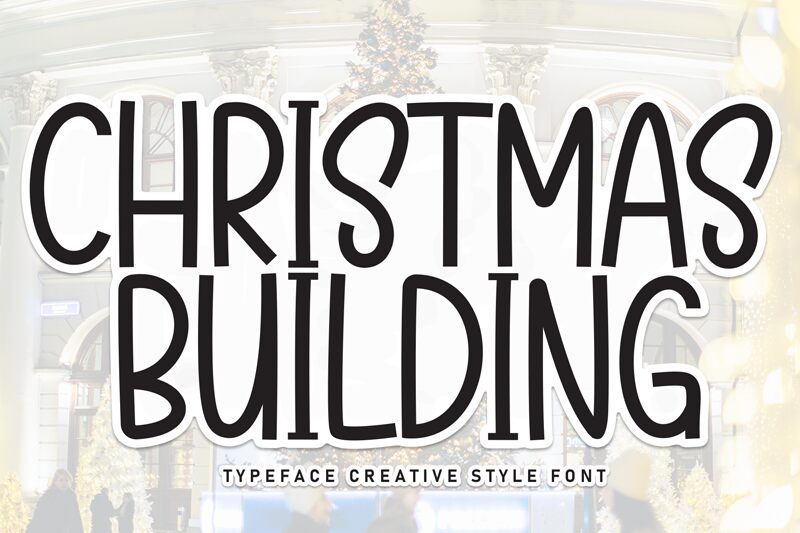
Christmas Building
Christmas Building font designed by Scratchones is a free handwritten font with a friendly and informal appearance. Featuring smooth condensed letters, the design works well where readability and approachability need to be achieved. The handmade aesthetic makes it perfectly suitable for those who prefer a minimal yet aesthetic look.
Use Christmas Building in packaging, cards, labels, logos, posters, quotes, titles, typography artworks, social media covers, banners, or posts. Moreover such font can be effective on signages that require display fonts which readily grab attention from readers.